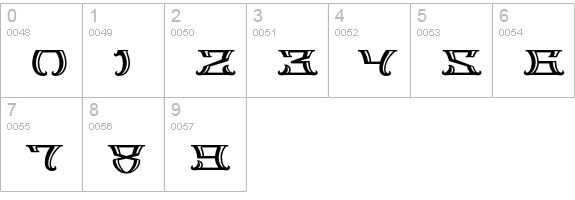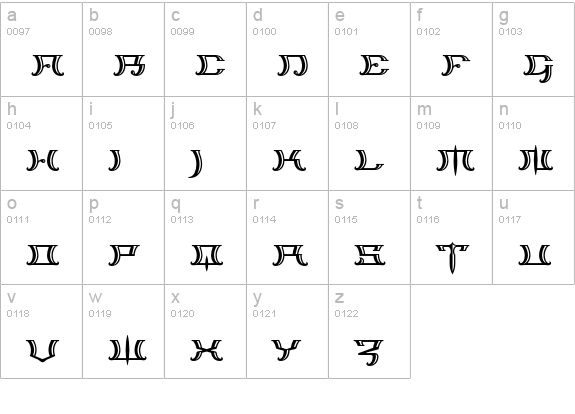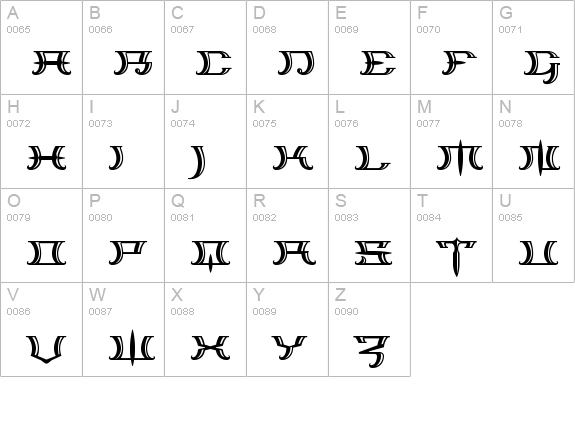
Trillium-GildedAlt Font Details
Trillium-GildedAlt font is a true masterpiece that effortlessly combines elegance and sophistication. This exquisite typeface features intricate details and ornate flourishes that add a touch of opulence to any design. Its graceful curves and delicate serifs make it perfect for creating luxurious and refined projects. Trillium-GildedAlt font stands out with its unique gilded style, adding a sense of grandeur and splendor to your typography. The meticulously crafted gold accents that adorn each character bring an element of luxury to your designs, making them truly unforgettable. Not only does Trillium-GildedAlt font exude elegance, but it also offers exceptional versatility. Whether you're designing wedding invitations, branding materials, or editorial layouts, this font provides a timeless and sophisticated aesthetic that enhances any project. What sets Trillium-GildedAlt font apart is its availability as a free download on FontsMarket.com. This means that you can easily access this remarkable font and elevate your designs without any cost. Its freely available nature makes it accessible to designers of all levels, allowing them to create stunning visuals without breaking the bank. With Trillium-GildedAlt font, you can effortlessly bring a touch of luxury and refinement to your designs. Download it for free at FontsMarket.com and experience the power of elegance in your typography.